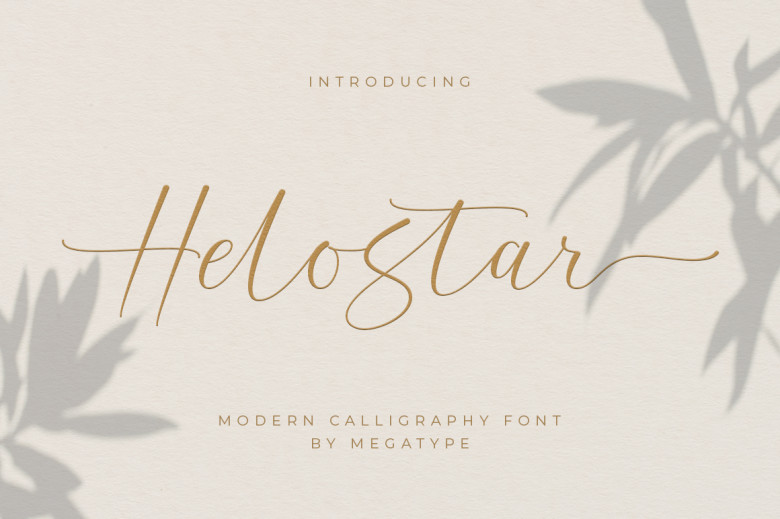
Helostar Font
Helostar is a modern calligraphy script font, that features a varying baseline, smooth line, classic and elegant touch. Can be used for various purposes, such as headings, signature, logos, wedding invitation, t-shirt, letterhead, signage, lable, news, posters, badges etc.
Helostar Calligraphy Script Font